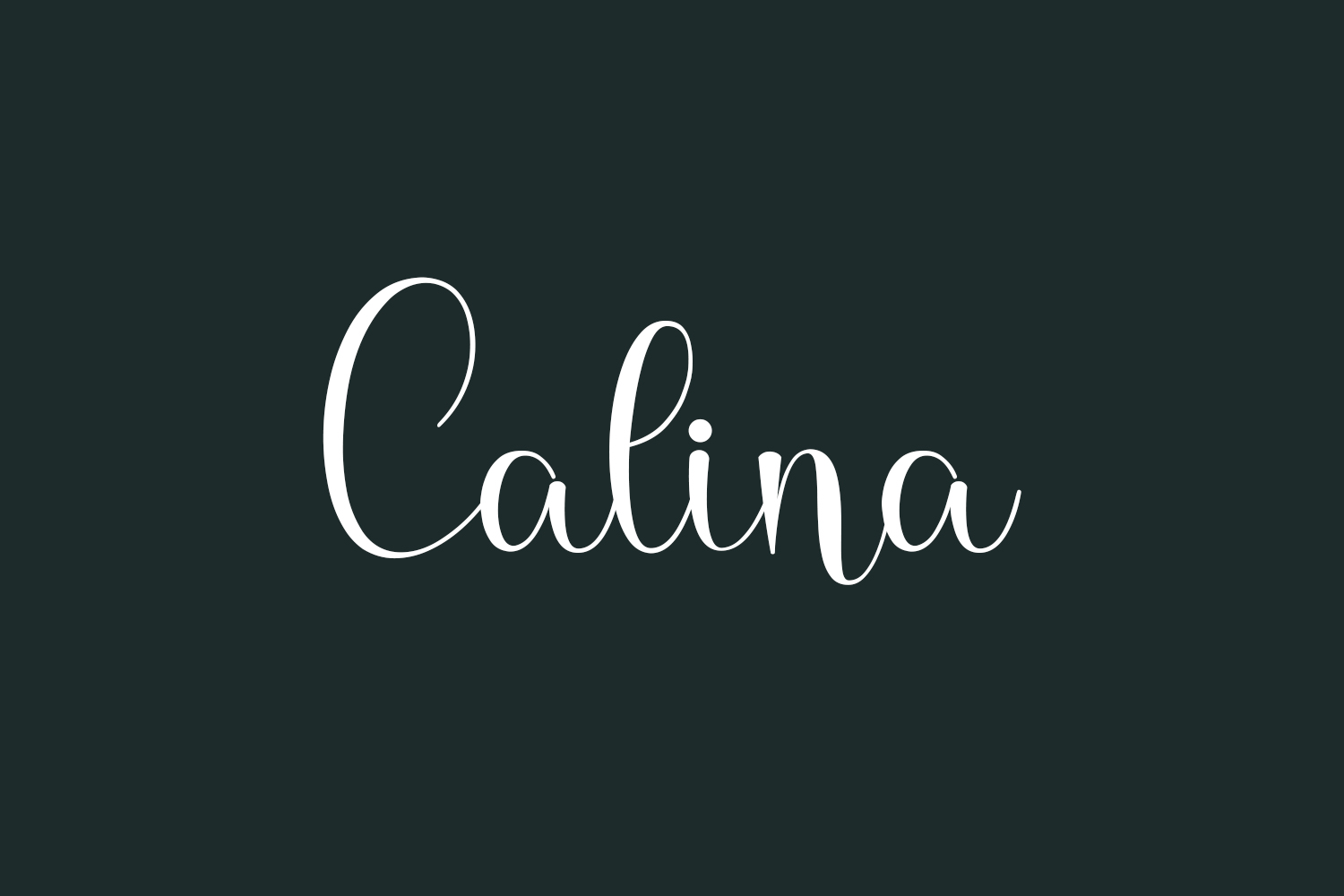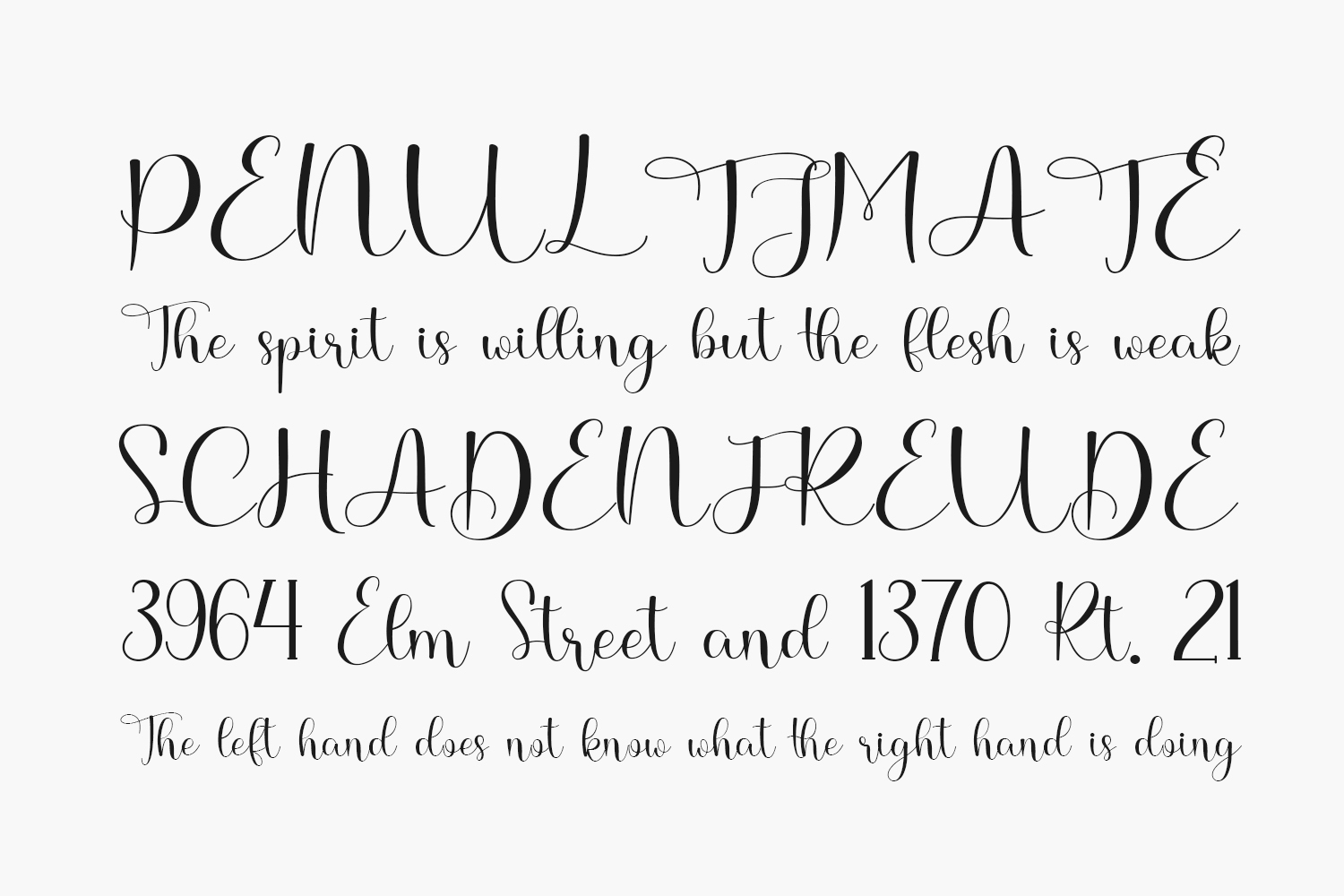
Calina Free Font is a romantic and elegant handwritten script font that exudes a sense of love and passion. With its fluid, flowing strokes and natural letter variations, this font perfectly captures the essence of elegant handwriting, making it a perfect choice for any design project that requires a touch of romance and sophistication. Whether you’re creating a wedding invitation, a love letter, or branding for a luxury brand, Calina adds a touch of elegance and sophistication to any design.
The font’s unique style is inspired by traditional calligraphy, which is characterized by fluid and dynamic strokes, elegant letterforms, and a sense of refinement. This makes Calina ideal for creating designs such as wedding invitations, love cards, posters, and branding. Its versatility allows you to use it for various designs like headlines, social media posts, and more.